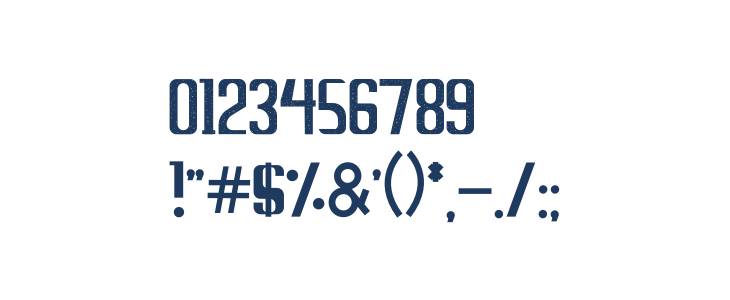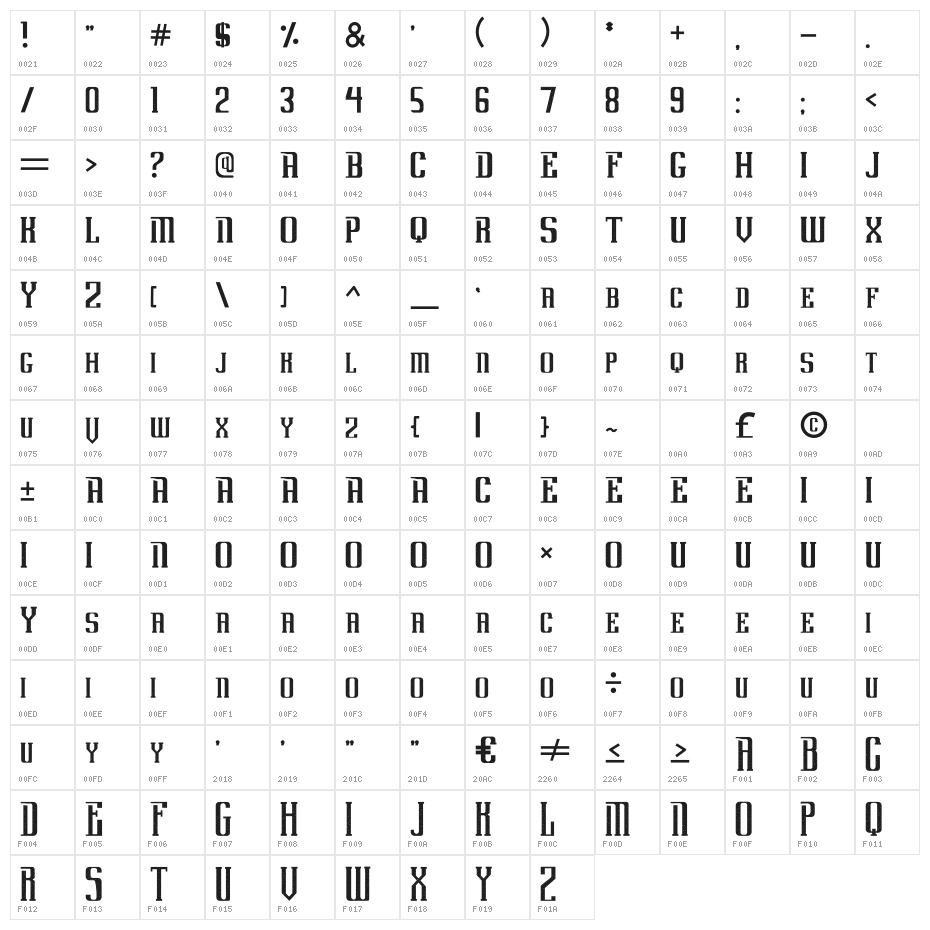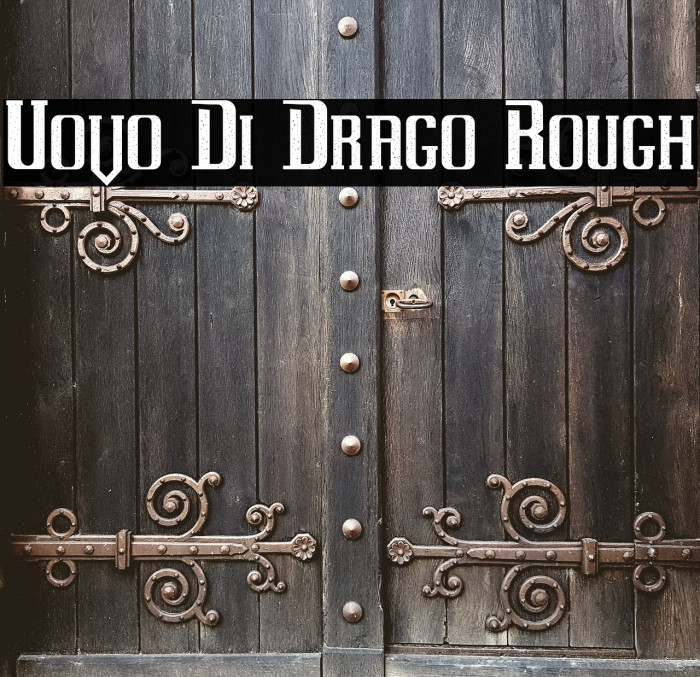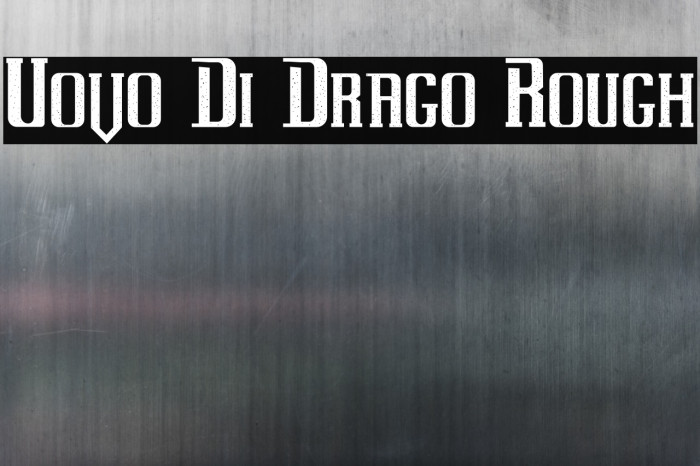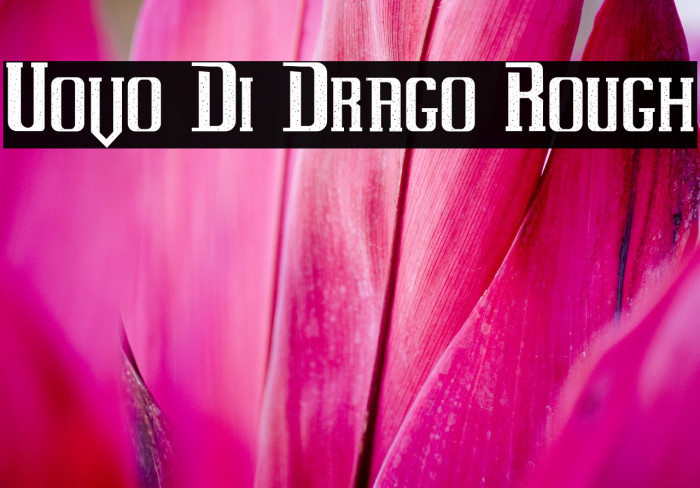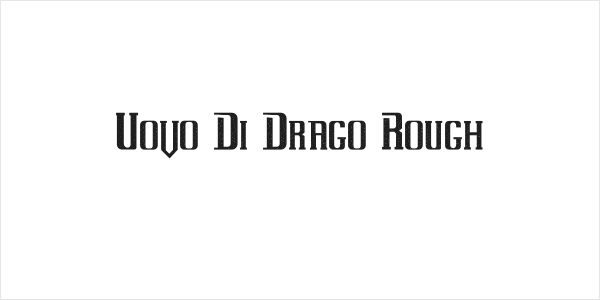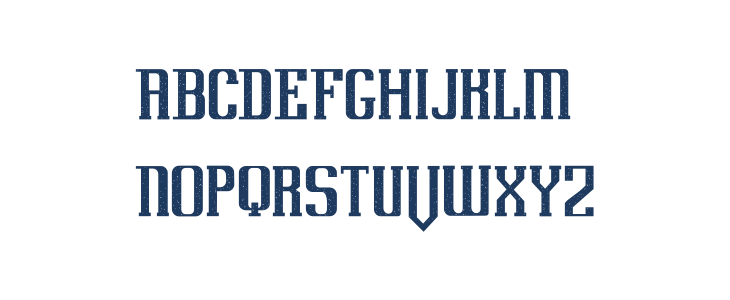
Uovo Di Drago Rough Font
Uovo Di Drago Rough Description
This font features a bold and rugged design with a distressed texture that gives it a vintage and worn appearance. The uppercase letters are tall and narrow, with sharp angles and a geometric structure that adds a modern touch. The lowercase letters maintain the same rugged texture, creating a cohesive look throughout the typeface. The numbers and special characters are designed with the same attention to detail, ensuring consistency across all elements. This font's unique style makes it stand out, perfect for projects that require a bold and eye-catching typeface.